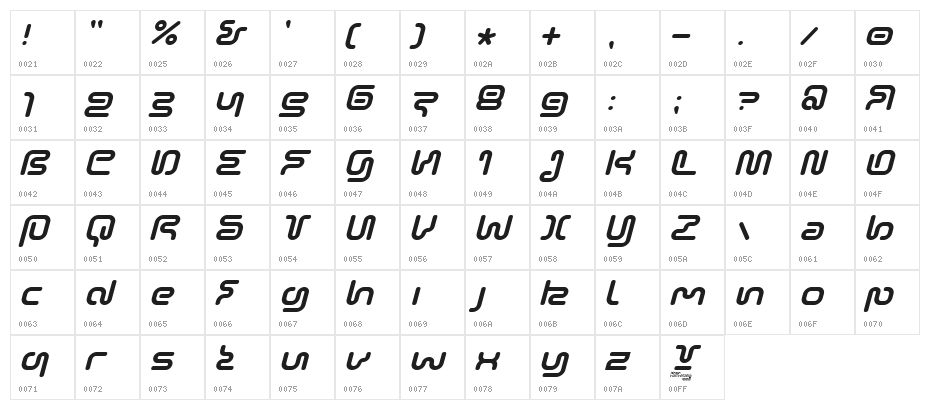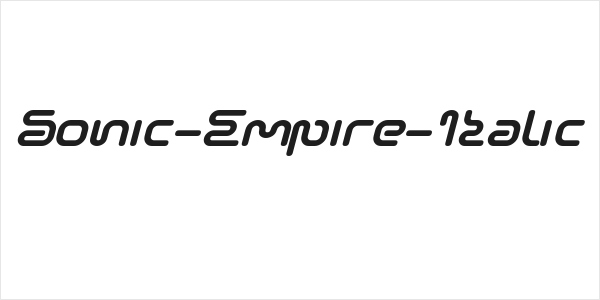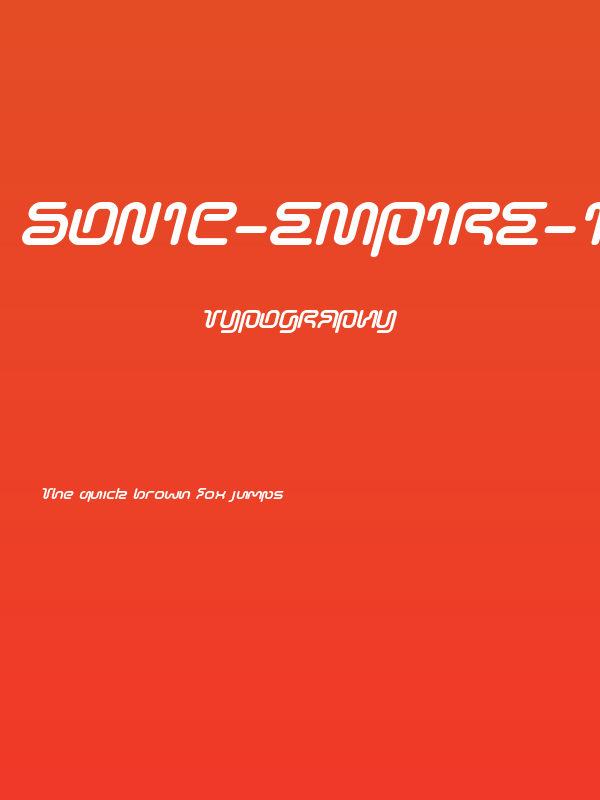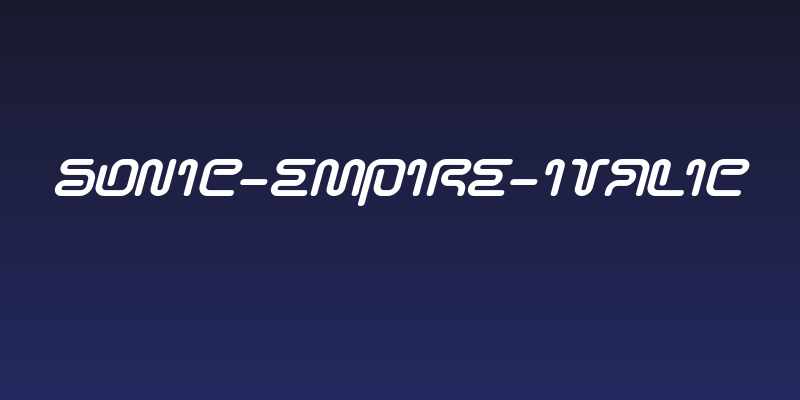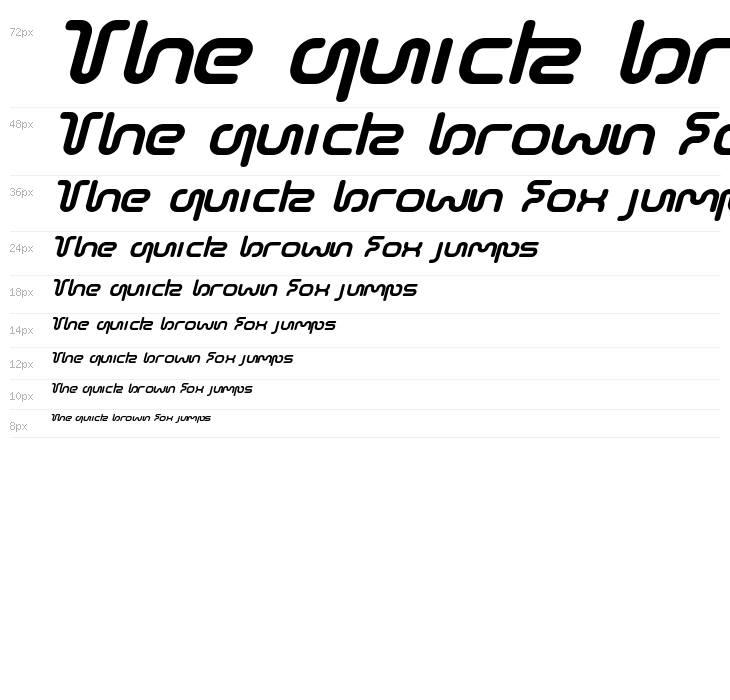
Sonic-Empire-Italic Font
Sonic-Empire-Italic Description
This font features a futuristic and sleek design with rounded edges and a continuous flow, giving it a dynamic and energetic appearance. The characters are slightly italicized, enhancing the sense of motion and modernity. The uppercase and lowercase letters maintain a consistent style, with a unique blend of curves and straight lines that create a harmonious balance. The numbers and special characters follow the same design principles, ensuring uniformity across all elements. This font is ideal for projects that require a contemporary and innovative look.
| Proposed Projects | Ideal for tech branding, sci-fi themed projects, video game titles, and modern advertising campaigns. |